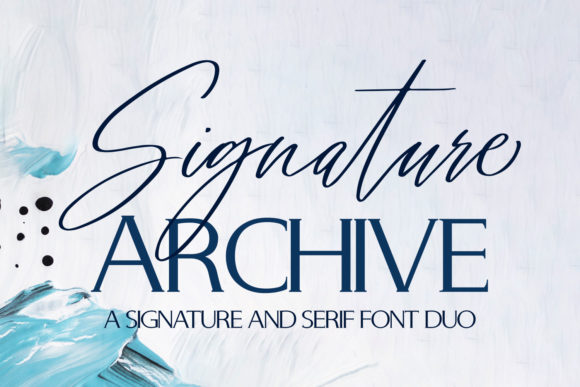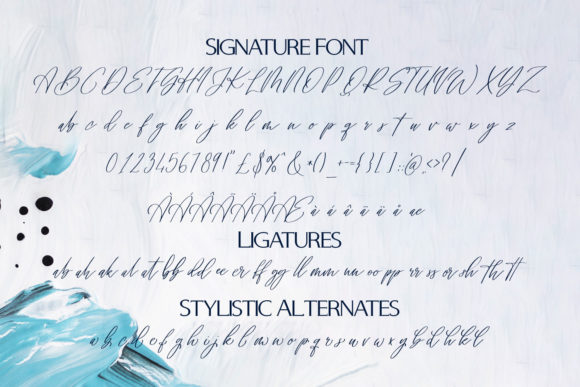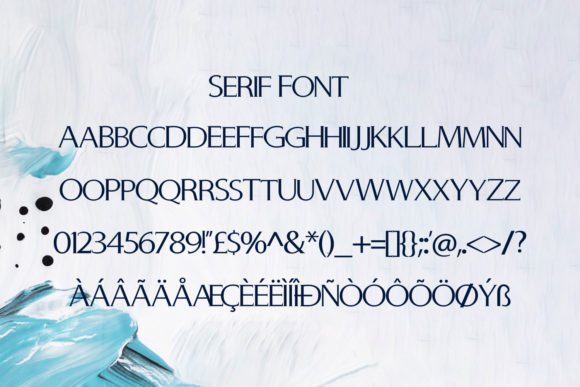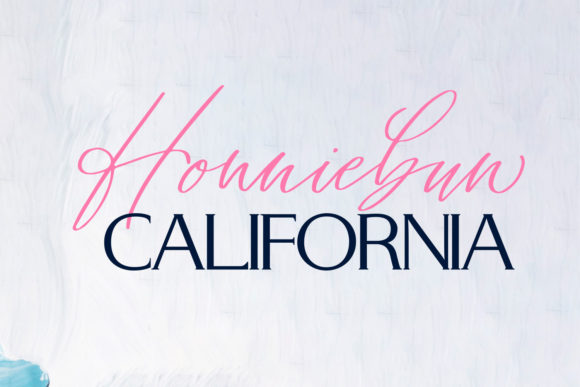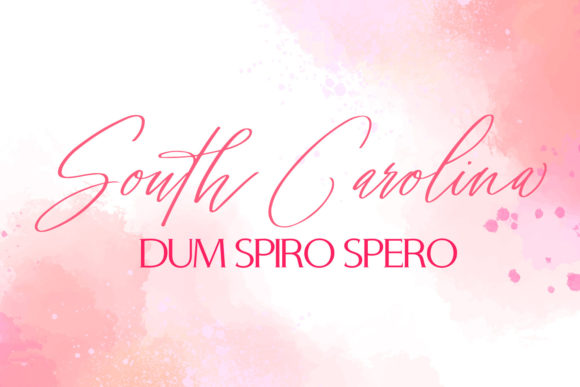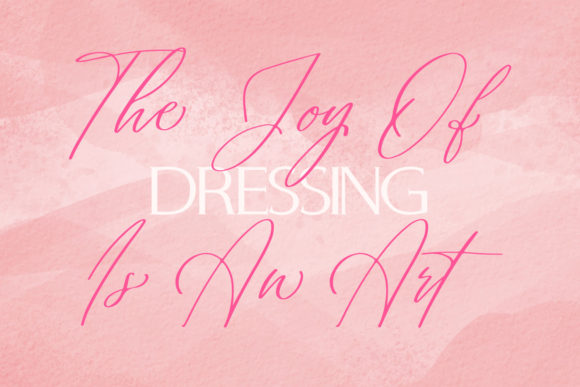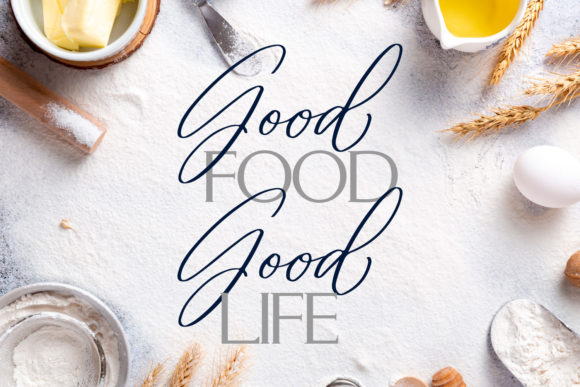
Signature Archive Font
About Signature Archive Font
Signature Archive is a spectacular duo font (serif and script). Incredibly versatile, this font fits a wide pool of designs, elevating them to the highest levels. Add this font to your favorite creative ideas and notice how it makes them come alive!